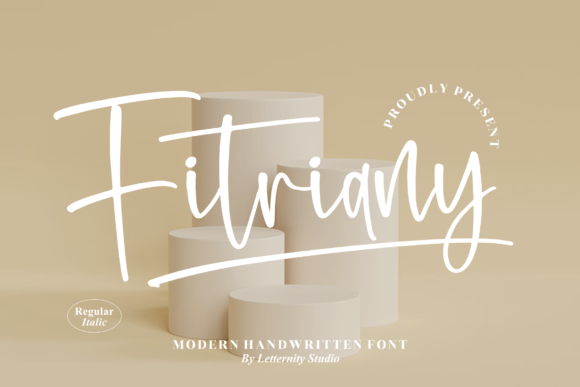
The Perfect Touch: Fitriany Font
Have you ever been working on a design project, pouring your heart and soul into every detail, and then it hits you – the perfect font to elevate your creation. For me, it was the moment I stumbled upon the Fitriany Font. Its sweet and cursive handwritten style was exactly what I needed to give my project that extra oomph.
Fitriany Font is a beautiful, gentle font that’s perfect for a variety of design ideas. From invitations to quotes, this font adds a touch of elegance and sophistication to any project. What makes it truly valuable for designers is its PUA encoding, which means you can access all of the glyphs and swashes with ease. With Fitriany Font, you can add an extra layer of personality to your designs without any hassle.
Fitriany Font Key Features
- Font Style: A beautiful, elegant script font designed for various uses, including logos, branding, and invitations.
- Character Set: Includes uppercase and lowercase letters, numbers, and punctuation marks, making it suitable for a wide range of applications.
- Unique Characteristics: The font features intricate, hand-drawn details and subtle flourishes, giving it a unique and sophisticated look.
Fitriany Font Review
Firstly, I’d like to say that the Fitriany Font has a lot going for it. ✨ The font’s unique and elegant design makes it perfect for creating a sophisticated and luxurious feel in any project. ✨ The font’s high x-height also makes it highly legible, even at smaller font sizes.
One of the standout features of Fitriany is its versatility. ✨ It can be used in a wide range of applications, from branding and advertising to publishing and digital media. The font also comes in a variety of weights, from light to bold, allowing designers to choose the perfect style to suit their needs.
While Fitriany is an excellent font, there are a few limitations that should be noted.
- ⚠️ Limited language support: Fitriany may not support certain languages, which could be a problem for designers working on projects that require multiple languages.
- ⚠️ Limited OpenType features: While Fitriany has some advanced OpenType features, it may not have as many as some other fonts, which could limit its functionality.
In conclusion, Fitriany is a high-quality font that is perfect for designers looking to add a touch of elegance and sophistication to their projects. While it has some limitations, these can be easily worked around, and the font’s many benefits make it well worth considering for any design project.
Getting the Most Out of Fitriany Font
To get the most out of Fitriany Font, try the following:
- Pair Fitriany with other fonts to create a unique and eye-catching design.
- Use Fitriany for headings and titles to create a clear hierarchy of information.
Fitriany Font is commonly used for:
- Food and drink labels.
- Fashion and beauty branding.
Alternatives to Fitriany Font
Great Vibes Font is a beautiful, modern calligraphy font that is perfect for creating a sophisticated and elegant look. It’s ideal for use in wedding invitations, branding, and other high-end designs. Great Vibes Font has a similar feel to Fitriany Font, but with a more refined and polished appearance.
Carolyna Pro Font is a elegant script font that is perfect for creating a luxurious and sophisticated look. It’s ideal for use in high-end branding, packaging, and other designs where a touch of elegance is needed. Carolyna Pro Font has a similar feel to Fitriany Font, but with a more refined and polished appearance, and is more suitable for use in larger sizes.
Alex Brush Font is a elegant script font that is perfect for creating a romantic and sophisticated look. It’s ideal for use in wedding invitations, branding, and other designs where a touch of elegance is needed. Alex Brush Font has a similar feel to Fitriany Font, but with a more refined and delicate appearance.
Dancing Script Font is a fun and elegant script font that is perfect for creating a playful and sophisticated look. It’s ideal for use in branding, packaging, and other designs where a touch of whimsy is needed. Dancing Script Font has a more dynamic feel than Fitriany Font, and is more suitable for use in smaller sizes.